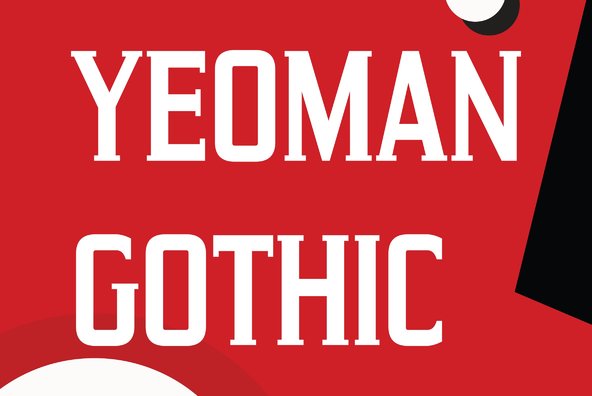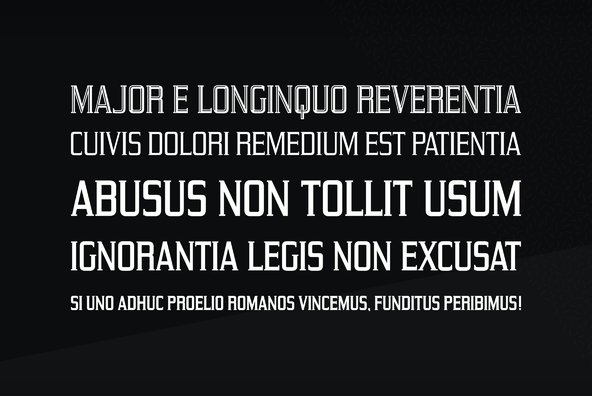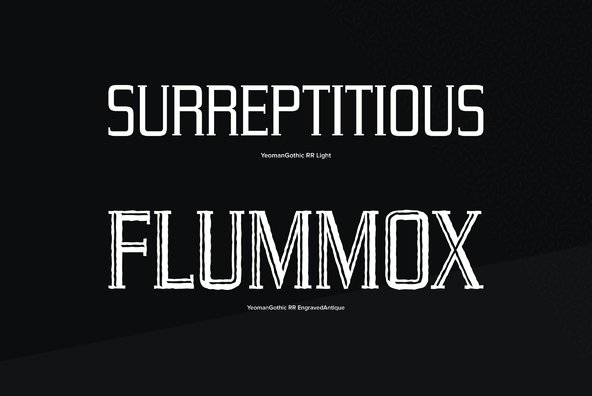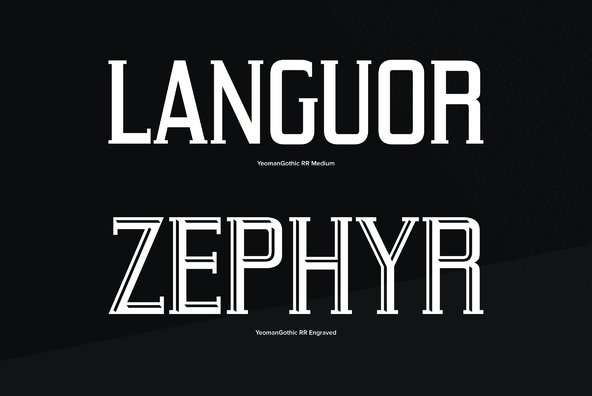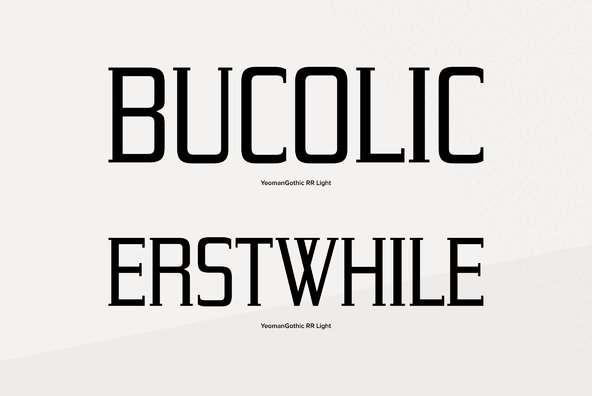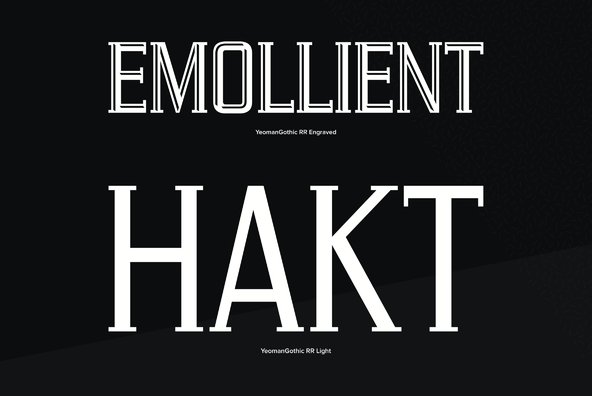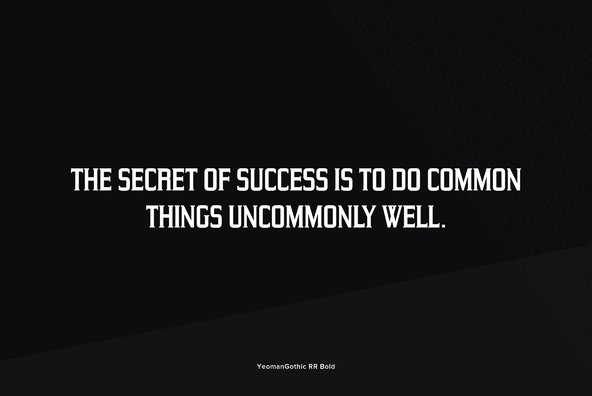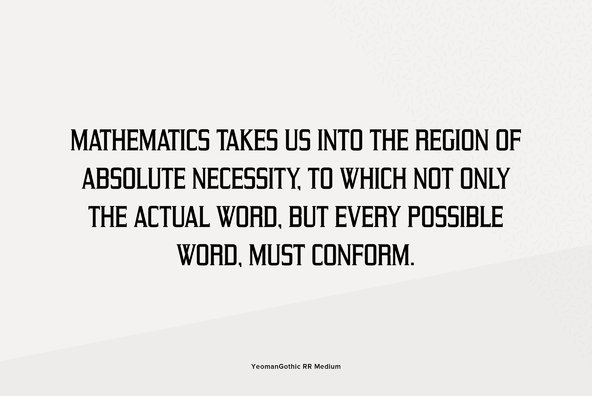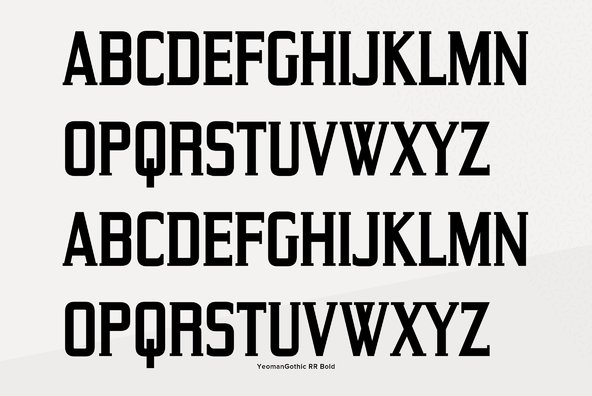
Yeoman Gothic
Designed by Steve Jackaman, Yeoman Gothic is a unique serif font based on an early wood type design. Yeoman Gothic is an original creation released for the Red Rooster Collection.